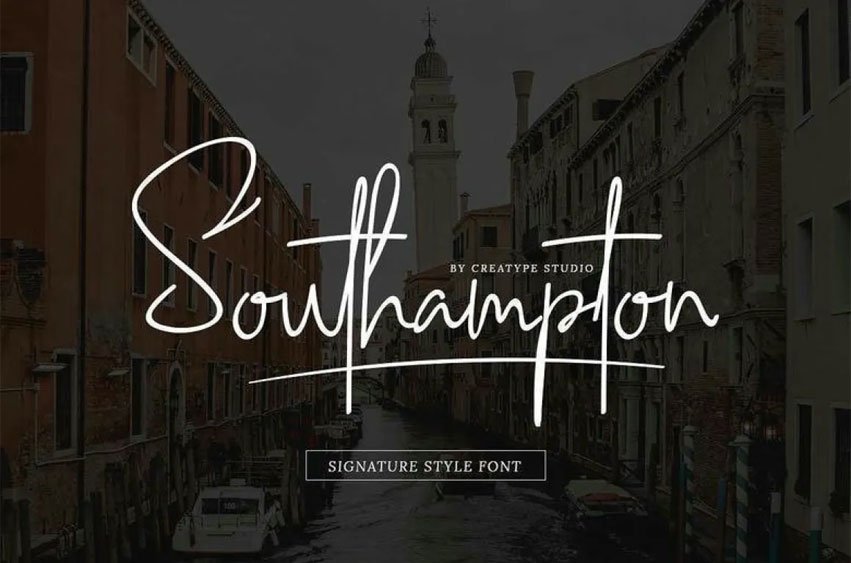
Southampton Font handwriting style that has been adopted in this website. Created and donated by Creatype Studio Co. , it conveys an additional deftness, equipped with a fashionable and exquisite exterior that can be used to adorn any variety of artwork with sophistication and grace.
Perfect for business and brand awareness for signage on logos inviations and wedding stationery advertisements social medial branding and postings product and package designs product and item labeling and watermarking for photos photography and for any event where handwritten or calligraphy writing looks more professional and more classy!